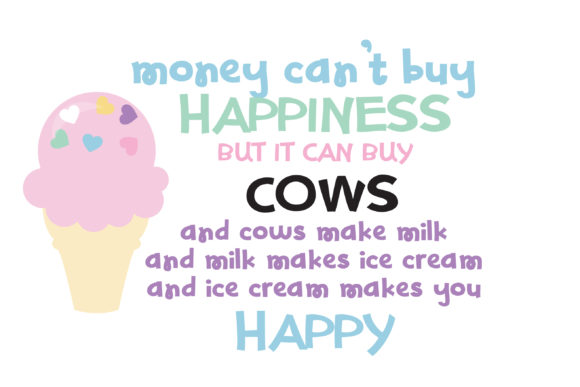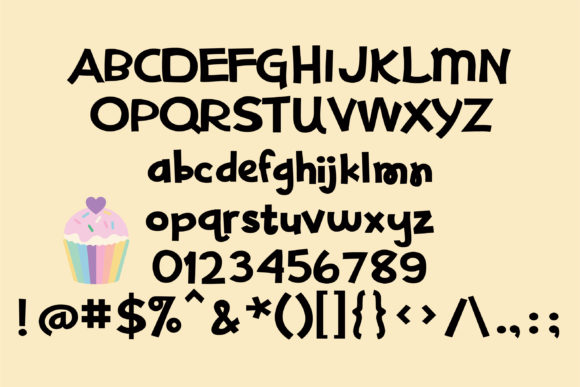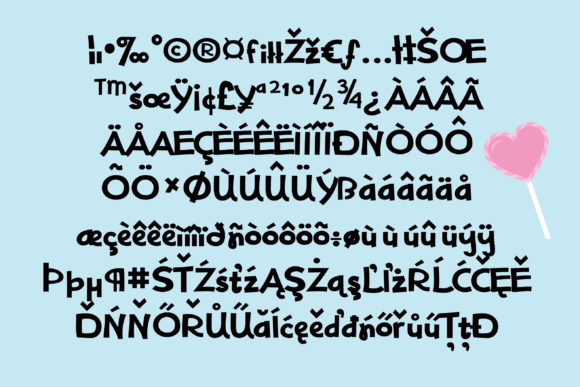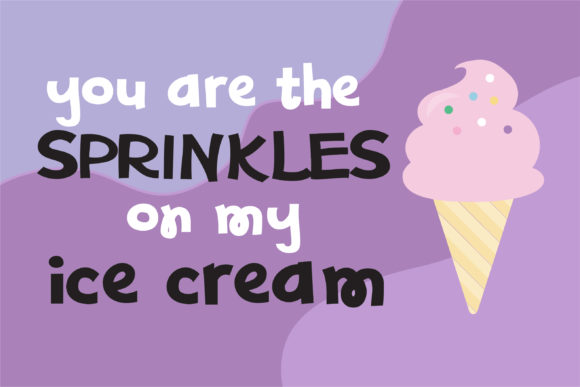
Introduction to Phat Print Font
You know that moment when you’re working on a creative project and you’re stuck on finding the perfect font to match your design vision? I’m sure we’ve all been there. The struggle is real, especially when you’re looking for something that’s not only visually appealing but also free to use. That’s where the Phat Print Font comes in – a game-changing design resource that’s here to save the day.
This hand-created print is the sister font to the Phat Script Duo, offering a unique blend of style and sophistication. With its high-quality design and transparent background, it’s the perfect addition to any creative project. Whether you’re a seasoned designer or just starting out, the Phat Print Font is a valuable asset to have in your design toolkit. And the best part? It’s available for free download, making it an instant hit among designers and creatives alike.
Key Features of Phat Print Font
- High-quality design resource suitable for various creative projects, including posters, flyers, and social media graphics.
- Transparent background option for seamless integration into different design environments.
- Phat Print Font features a bold and eye-catching style, making it ideal for grabbing attention in advertising and promotional materials.
- Comes in 5 different font sizes, ranging from 12pt to 72pt, allowing for flexibility in design composition.
- Designed with high resolution in mind, suitable for print and digital applications up to 300 DPI.
- Phat Print Font is a versatile design resource that can be used in various contexts, from business to entertainment, and everything in between.
Honest Review: Phat Print Font
As a designer, I’m always on the lookout for high-quality design resources to enhance my creative projects. Recently, I stumbled upon the Phat Print Font, and I’m excited to share my honest review.
- Unique and bold typography: The Phat Print Font offers a distinctive, eye-catching style that’s perfect for making a statement.
- High-quality design: The font is well-designed, with crisp lines and a clean aesthetic.
- Limited font styles: While the font itself is great, it’s available in only a few styles, which might not be suitable for all design projects.
- Not ideal for small text: Due to its bold nature, the font may not be the best choice for small text or body copy.
Overall, I’m impressed with the Phat Print Font. It’s a great addition to my design library, and I appreciate the transparent background, making it easy to use in various design contexts. While it may have some limitations, I believe it’s a valuable resource for designers looking to add some personality to their creative projects.
Getting the Most Out of Phat Print Font
To get the most out of Phat Print Font, try using it in combination with other design elements such as images and graphics. This will help to create a visually appealing design that stands out. Additionally, you can experiment with different font sizes and styles to create a unique look.
Phat Print Font is a versatile font that can be used in a variety of design projects. Some common use cases include:
- Designing business cards and brochures
- Creating social media graphics and ads
- Developing presentation slides and reports
- Designing websites and landing pages